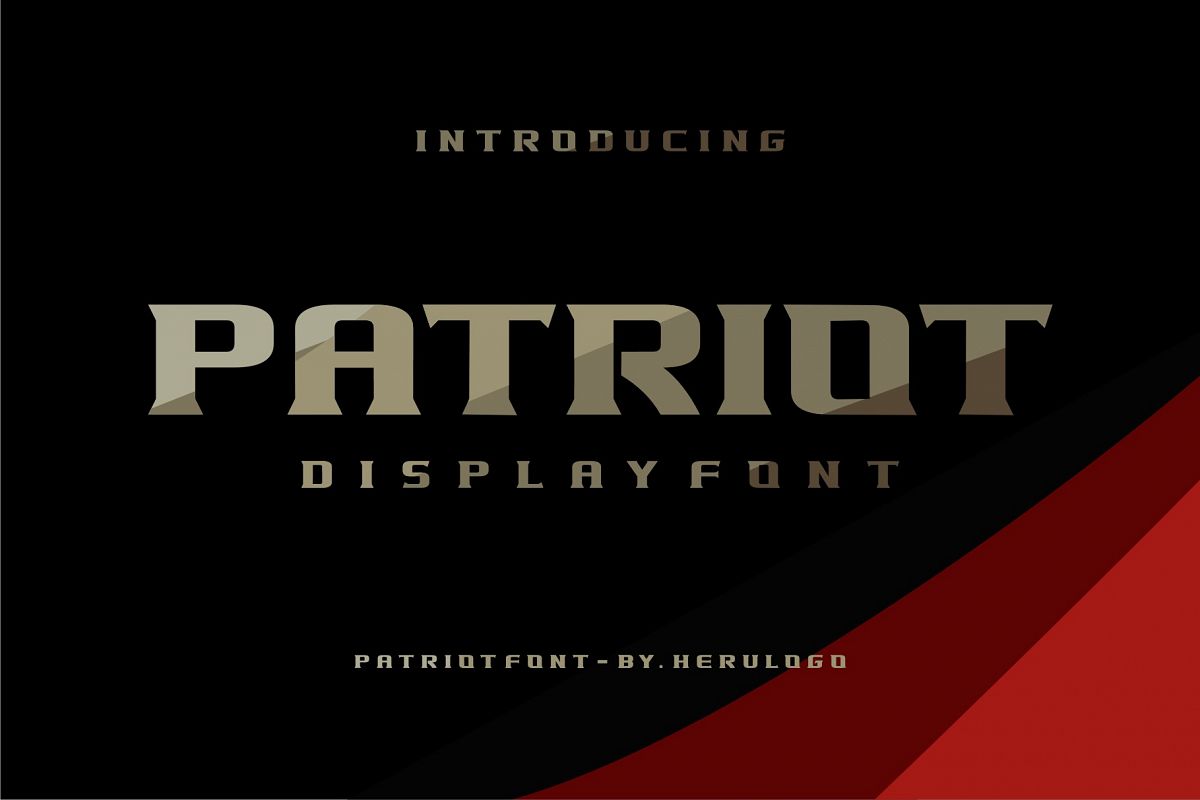
PATRIOT
It is strong, powerful and royal. Don’t spend hours and hours searching for Strong typeface / strong font when you can buy this font and kick start your new brand within minutes.